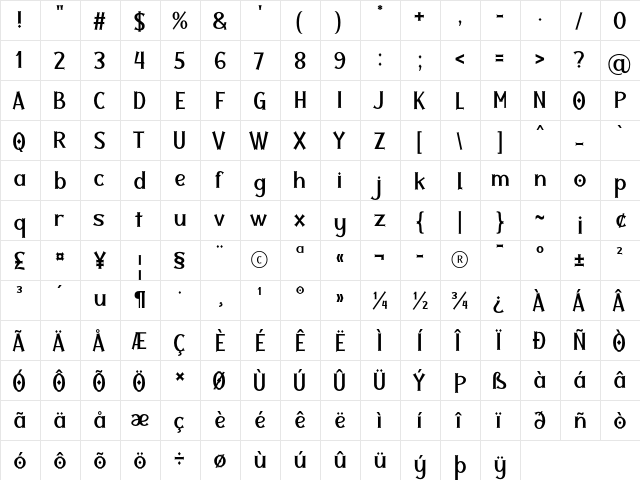
Twolank Regular
| Foundry | 7NTypes |
| Designer | Jasman Nazara; Situjuh Nazara |
Design Context for Twolank Typeface
Twolank takes a measured approach to typography — its balanced proportions and neutral character make it a reliable workhorse for both digital and print work.